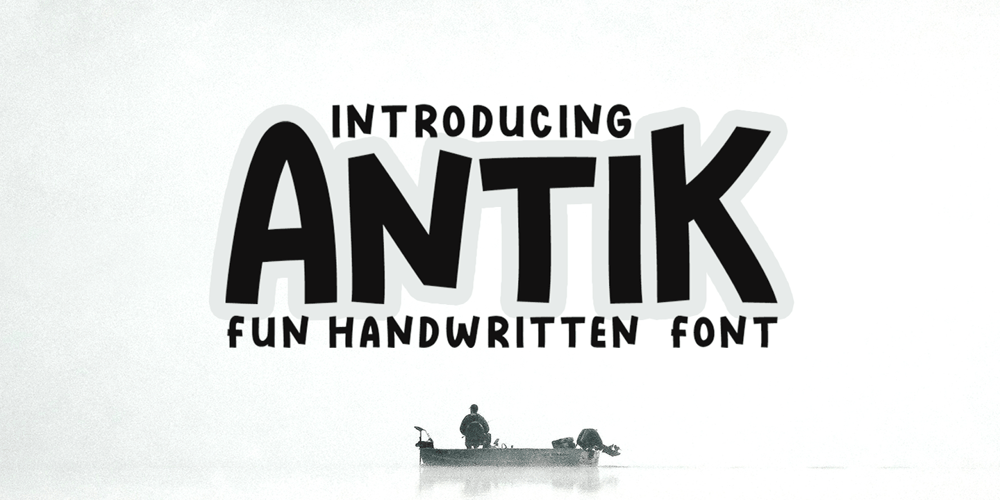
Antik Font Family was designed by Nasrullah and published by Sulthan Studio. Antik contains 2 styles and family package options. A fun font that is truly extraordinary, handwritten as it is, a combination of lowercase and uppercase letters, really cool, has a playful impression but is very amazing, very suitable for all jobs because this font has its own free style and courage.